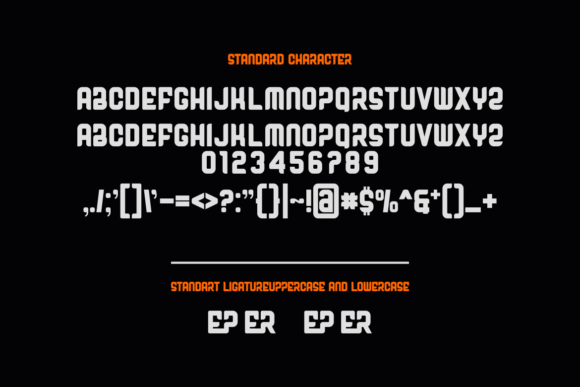
Introduction to Koeper Font
You’ve spent hours pouring your heart into a design project, perfecting every detail, and finally, it’s ready to shine. But, there’s something missing – the perfect font to bring it all together. That’s where the Koeper Font comes in, a sleek and modern display font that’s sure to elevate your design game.
With its clean lines, modern aesthetic, and versatile style, the Koeper Font is a valuable resource for designers looking to add a touch of sophistication to their creative projects. Whether you’re working on a logo, brochure, or social media campaign, this high-quality font is sure to impress. Plus, it’s a free download, making it an accessible design resource for designers of all levels.
Imagine being able to add a professional and modern touch to your design with just a few clicks. With the Koeper Font, you can achieve just that, all while working with a transparent background that allows your design to truly shine. Get ready to take your design projects to the next level with this incredible font.
Key Features of Koeper Font
- High-quality, free download font ideal for creative projects and design resources.
- Features a transparent background, making it perfect for overlaying on images or videos.
- Includes a range of glyphs and characters, making it suitable for various design applications, from logos to typography.
- Designed with a unique aesthetic, the Koeper Font adds a touch of sophistication to any creative project.
Honest Review: Koeper Font
As a designer, I’ve come across numerous fonts in my search for the perfect design resource. The Koeper Font is one such font that caught my attention, and I’m excited to share my honest review with you.
What works well
✨ The Koeper Font is a high-quality font that’s perfect for creative projects. It’s clean, modern, and has a unique touch to it. The font is highly legible, making it ideal for body text or headings.
✨ The font also comes with a transparent background, which makes it easy to place over images or other design elements without any issues.
Overall, I’m impressed with the Koeper Font. It’s a solid design resource that’s perfect for creative projects. While it may not be free, the quality and unique touch it brings to a design make it worth the investment.
To get the most out of the Koeper Font, experiment with different font sizes, colors, and combinations. You can also use it in conjunction with other design elements to create a unique and eye-catching look.
The Koeper Font is ideal for a wide range of creative projects, including graphic design, digital art, and even web design. Its versatility and high-quality design make it a valuable resource for designers of all levels.